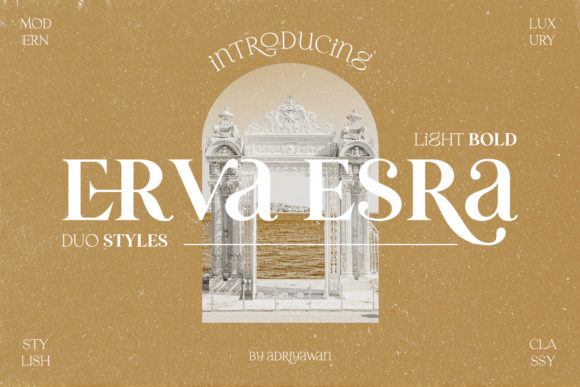
Embark on a typographic odyssey with Erva Esra, a serif font family that exudes elegance and sophistication. Step into a world where words dance gracefully, leaving an imprint of timeless beauty. Erva Esra is not just a font; it's an artistic expression that elevates your designs to new heights.
Crafted by the visionary minds at Dxsign, Erva Esra is a versatile masterpiece that adapts seamlessly to a multitude of design endeavors. Whether you seek to compose a heartfelt cover letter that leaves a lasting impression, craft an enchanting wedding invitation that captures the essence of love, or unleash your creativity in branding projects, Erva Esra is your trusted companion.
Immerse yourself in a symphony of styles, from the classic charm of Erva Esra Regular to the bold allure of Erva Esra Bold. Each weight carries its own distinct personality, allowing you to tailor your designs to perfection. Whether you desire a touch of understated elegance or a bold statement that commands attention, Erva Esra has the power to transform your visions into reality.
Experience the allure of Erva Esra's meticulously crafted ligatures, meticulously designed to create harmonious letter combinations that flow effortlessly. Bask in the glory of stunning alternates that add a touch of intrigue and personality to your creations. Unleash your imagination and explore the endless possibilities that await you with Erva Esra.
With its extensive language support, Erva Esra embraces the world, allowing you to communicate your message across borders and cultures. Let your words resonate with a global audience, transcending linguistic barriers and connecting hearts through the universal language of typography.
Erva Esra is more than just a font; it's a gateway to a world of boundless creativity. It's an invitation to embark on a journey where your designs take center stage, captivating audiences with their allure and finesse. Seize the opportunity to elevate your design prowess and leave an indelible mark on the world.